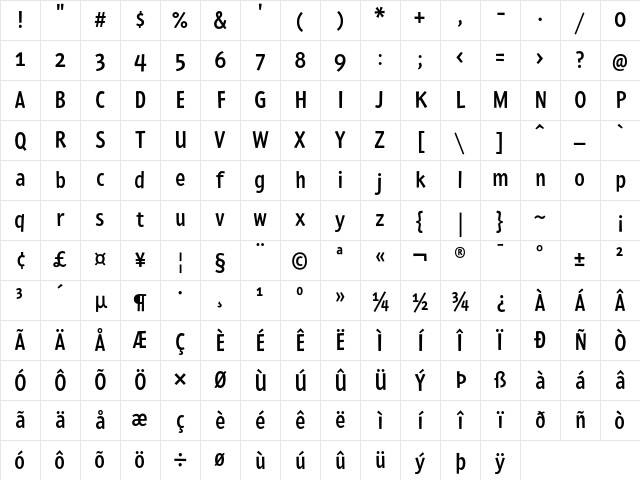
Design Context for PedestriaMVB-Medium
PedestriaMVB-Medium is a composed and adaptable typeface that performs quietly and consistently across a wide range of design contexts.
Pro Tip: Use PedestriaMVB-Medium in both headline and body roles to test its range before committing to a single application.